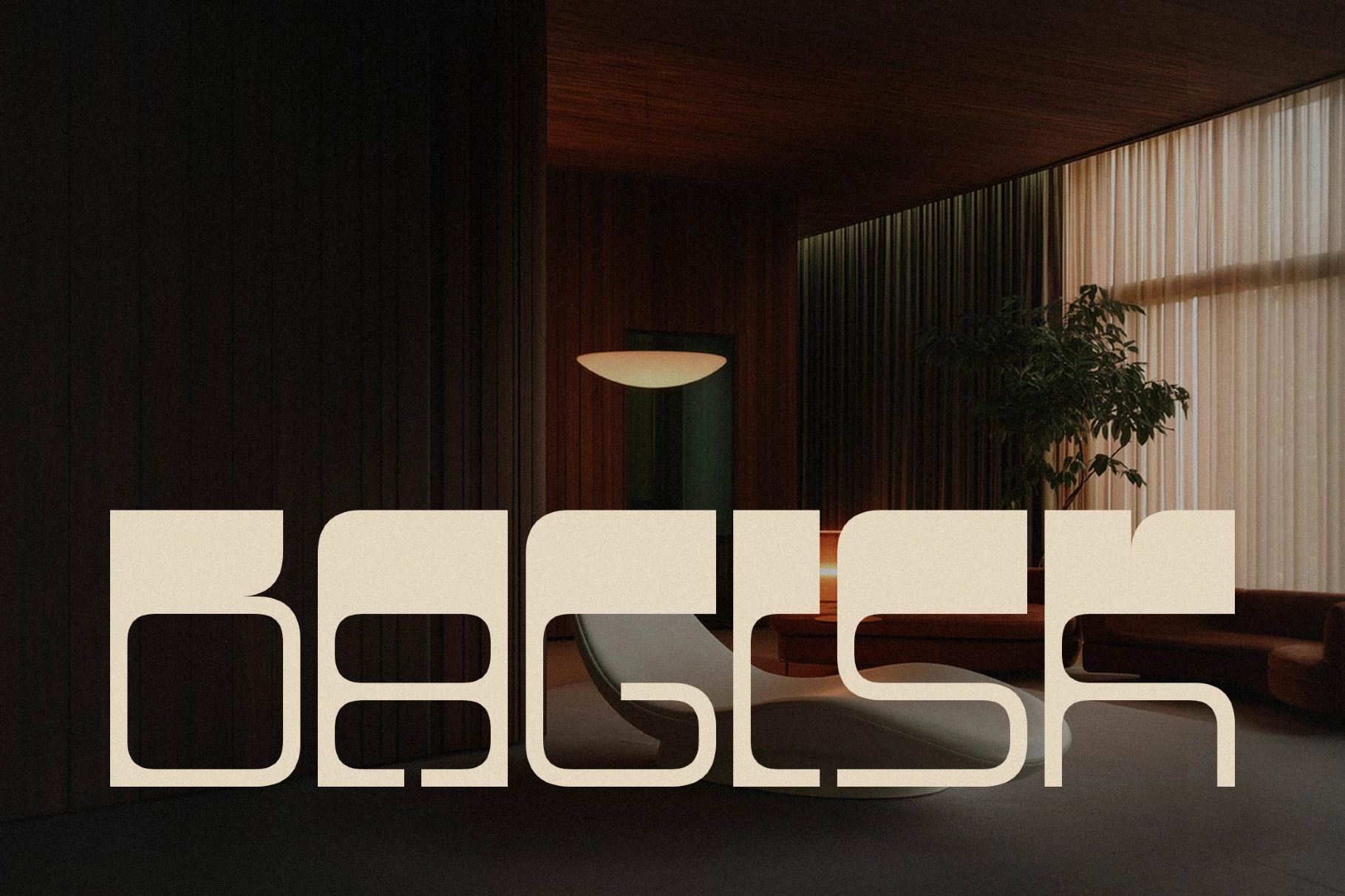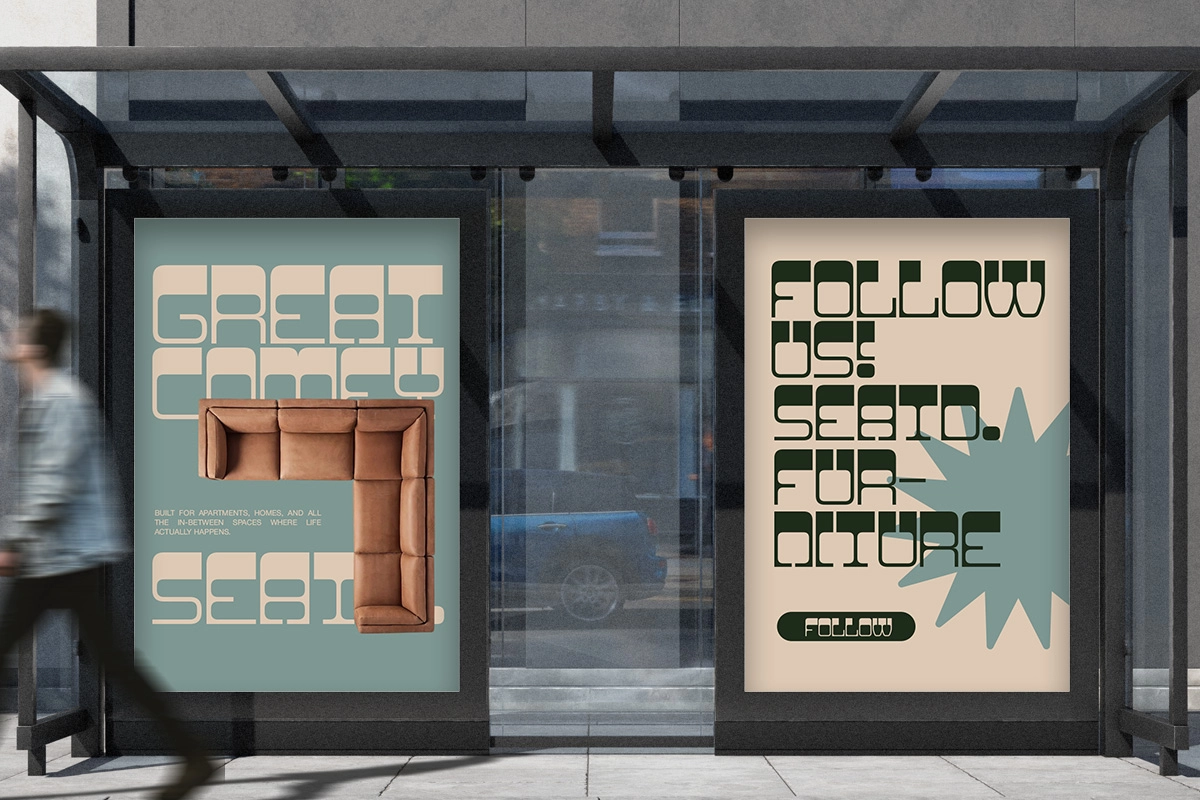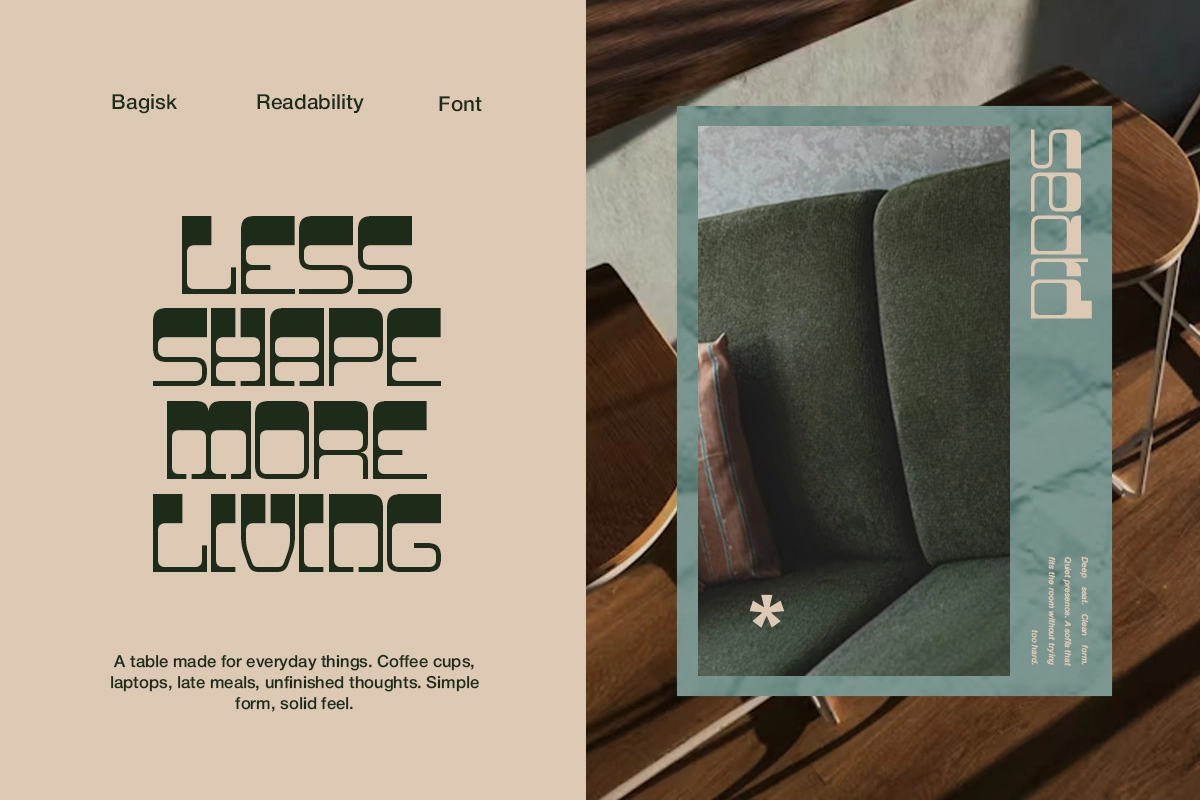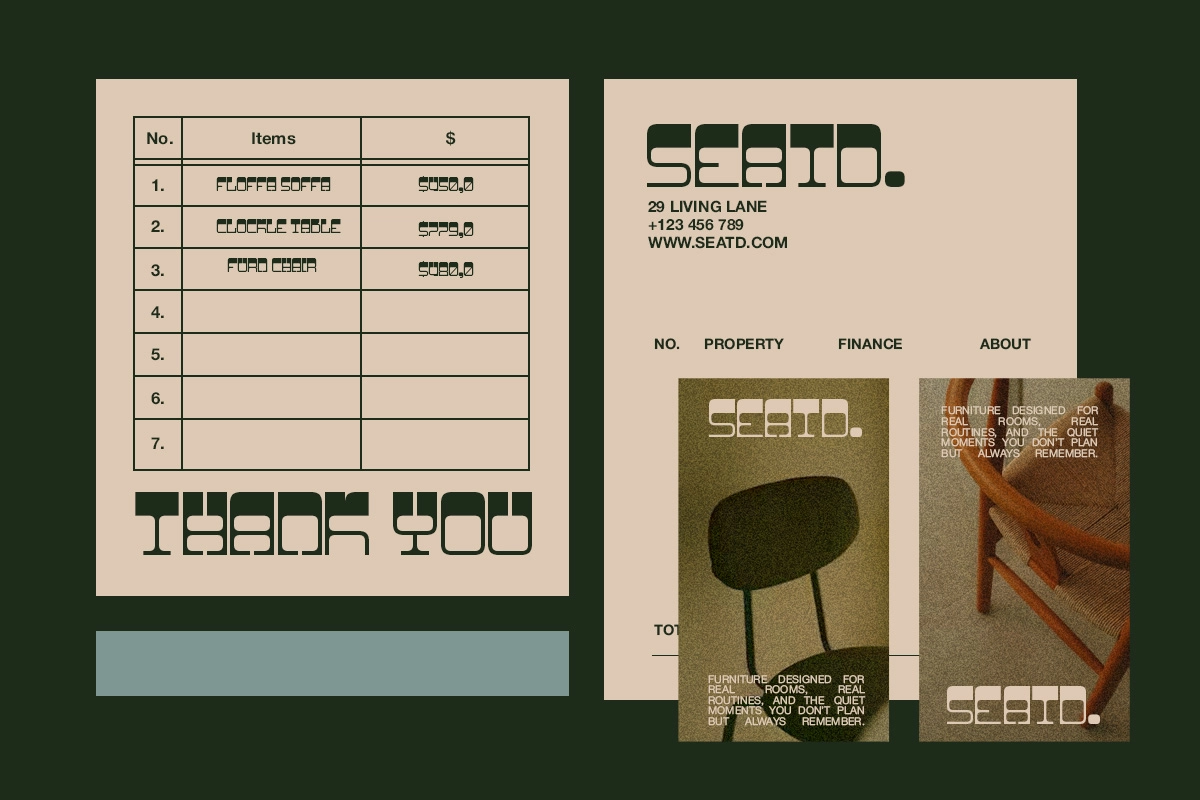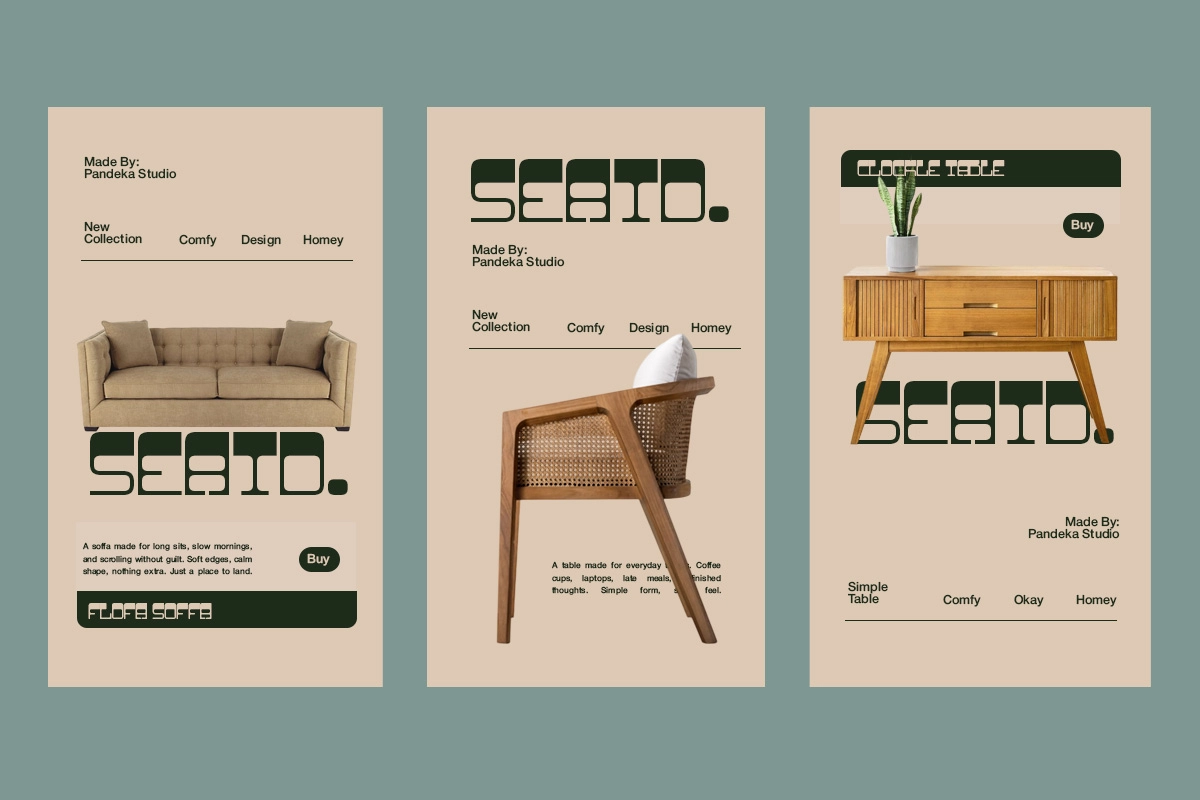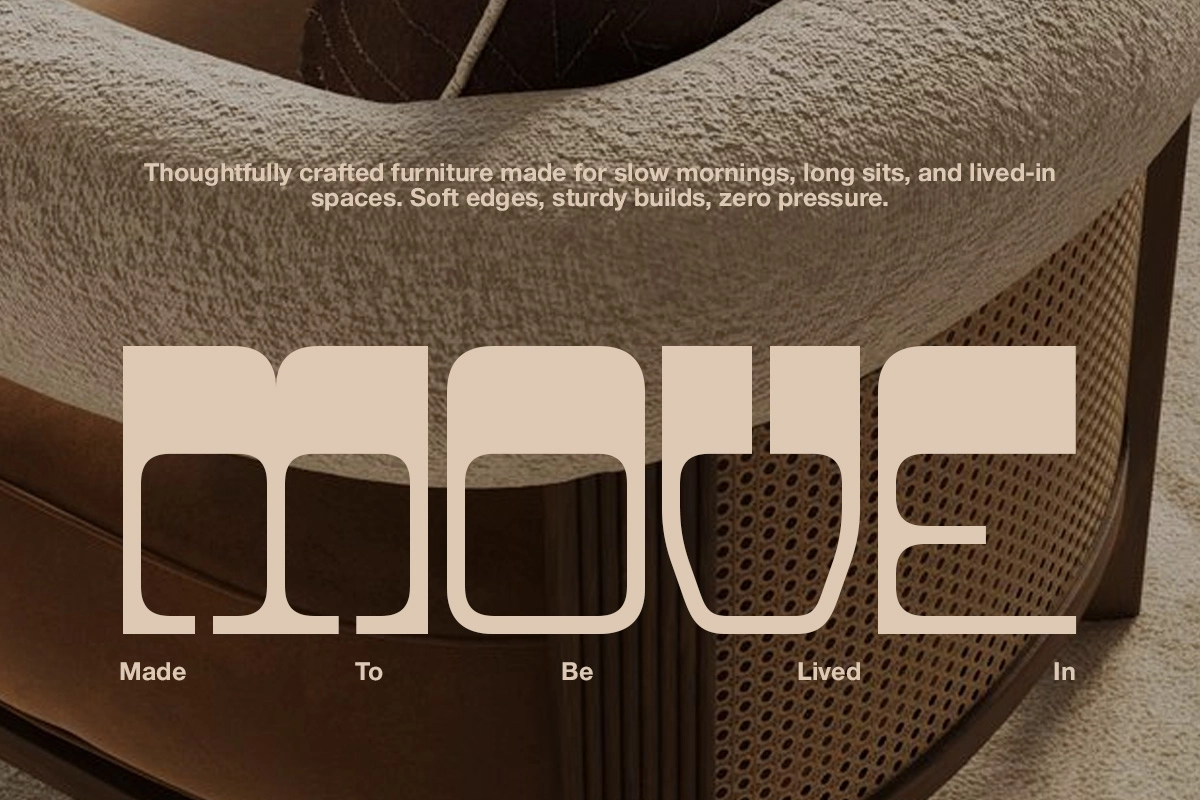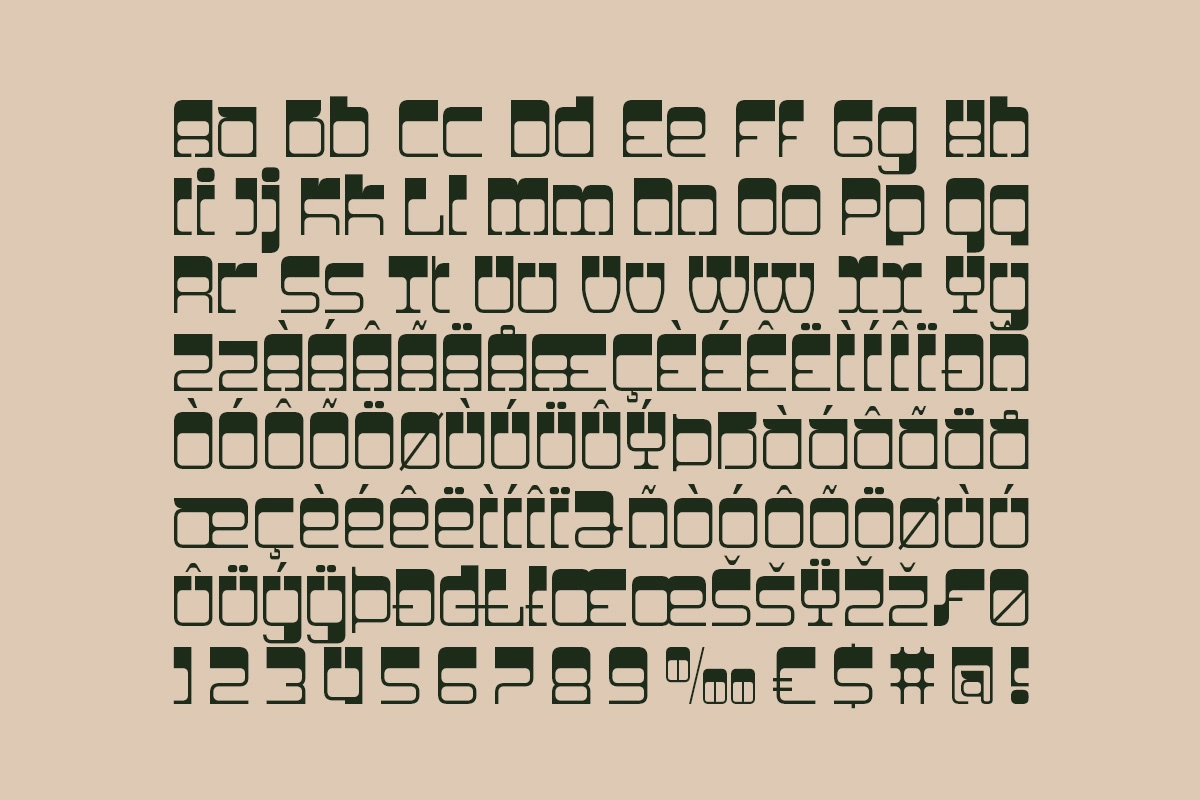
Bagisk - Geometric Display Font
Bagisk builds its letters the way an architect sketches elevations — square-set geometry, rounded outer corners, and quarter-circle notches cut into every joint. That constructed rhythm turns it into a geometric display font with a distinctly architectural, showroom-ready character. The Slant companion tilts the same structure into a livelier, more dynamic line.
Bagisk works best in short, confident settings, where the notched joints read as shape first and letters second. Use it for furniture branding, showroom signage, catalog covers, product packaging, editorial headlines, poster titles, gallery invites, website headers, and social banners.